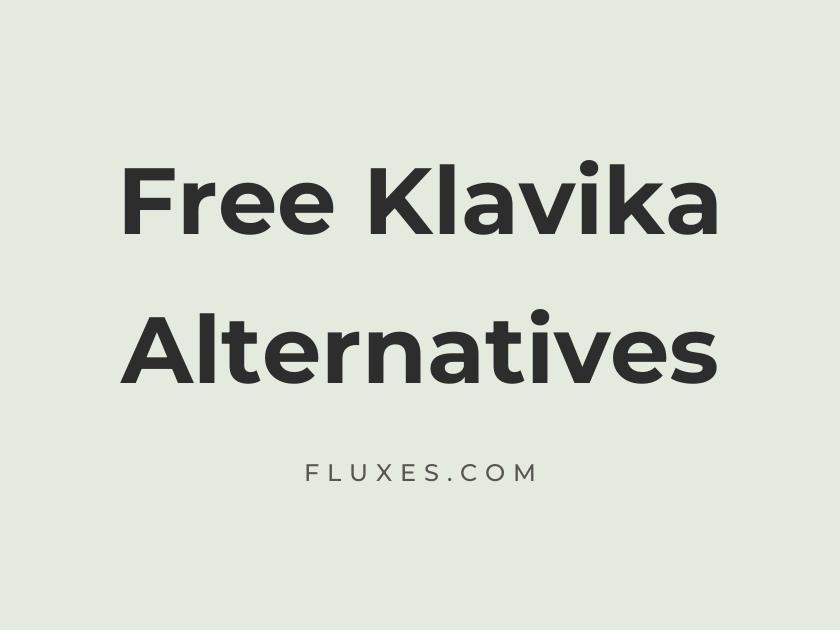
16 Best Free Fonts Alternatives to Klavika
Klavika built its reputation on the sports pages and broadcast graphics of ESPN, prized for a geometric structure softened just enough by rounded, almost humanist curves. That combination of technical precision and warmth is hard to find, and since Klavika itself was never released as a free Google Font, designers looking for that same confident, modern sans often end up hunting for substitutes. The fonts gathered here share its geometric bones, clean apertures, or sporty confidence, and every one of them is free to download and use in branding, editorial layouts, and interface work.
1. Montserrat
Bold headlines built for modern brand systems
Montserrat is the font most designers reach for first when a brief calls for something geometric and urban, and it earns that reputation with even stroke widths and a wide range of weights that scale from delicate captions to billboard-sized display type. It shares Klavika’s confident, almost architectural feel without borrowing any of its more unusual details, making it a safe and versatile substitute for logos, headers, and UI type.
2. Poppins
Score updates, standings, and stat breakdowns
Poppins leans harder into pure geometry than Klavika, with perfectly round o’s and consistent monoline strokes that give it a friendly, almost toy-like energy at large sizes. It works well for app interfaces and sports-adjacent branding that wants to feel current and approachable, though at small body text sizes the uniform stroke width can start to blur, so pair it with a more neutral text face for long paragraphs.
3. Jost
Fast, clean, geometric type for game day
Drawing inspiration from 1920s geometric sans classics, Jost brings a retro-futurist edge that photographs well in oversized headlines and posters. Its perfectly circular counters and tall x-height give it real presence on a page, and it makes a striking substitute wherever Klavika’s geometric confidence is the main draw rather than its warmth.
4. Space Grotesk
Technical stats rendered in sharp modern type
Space Grotesk carries a slightly quirky, engineered feel, with subtle irregularities in its letterforms that keep it from feeling too mechanical. It suits tech dashboards, sports data visualizations, and product interfaces where Klavika’s technical sensibility matters more than a strict geometric grid.
5. Sora
Precision graphics for the broadcast booth
Sora reads as calm and controlled, built on geometric skeletons but finished with rounded terminals that keep it from feeling cold. It is a strong choice for dashboards, sports apps, and product UI that need a display font capable of also handling smaller interface text without falling apart.
6. Outfit
Championship rosters and league standings
Outfit is a compact, no-nonsense geometric sans that feels tailor-made for interface labels, navigation bars, and short headline bursts. Its tight spacing and even weight distribution echo the tidy, engineered look Klavika brought to ESPN’s on-screen graphics.
7. Manrope
Clean grids for scoreboards and stat panels
Manrope softens geometric construction with slightly narrowed apertures and gentle curves, giving it a more editorial, less sporty character than some of the other options here. It works especially well in body copy and captions, making it a smart pairing partner for a bolder geometric display font used in headlines.
8. Barlow
Fast-paced sports coverage, headline to footer
Barlow takes its cues from the low-key, functional signage lettering of California license plates and highway systems, which gives it a slightly condensed, utilitarian rhythm that suits sports and athletic branding particularly well. It has genuine range too, with enough weights and widths to cover an entire publication’s typographic system, from dense data tables to oversized magazine headlines.
9. Archivo
Bold scores, bold statements, bold design
Archivo carries real muscle at heavy weights, with thick, confident strokes that hold up beautifully in large headlines and cover treatments. Originally developed for editorial and grid-based design systems, it has the structural discipline that made Klavika a favorite for data-heavy sports layouts.
10. Chivo
High-impact type for high-impact moments
Chivo is unapologetically bold and geometric, built for headlines that need to command attention rather than blend in. It can feel heavy-handed in long-form text, so it is best reserved for titles, scoreboards, and cover lines rather than paragraphs.
11. Red Hat Display
Modern branding for teams and leagues
Red Hat Display was designed with corporate and product branding in mind, and it shows in its restrained, businesslike geometry. It is a dependable, understated alternative for brands that want Klavika’s technical polish without any playful flourishes.
12. Hanken Grotesk
Sharp lines for sharp competition
Hanken Grotesk keeps things simple and legible, with a slightly compressed structure that reads well in tight layouts like sidebars and data tables. It doesn’t try to be flashy, which makes it a reliable workhorse font for the supporting text around a bolder geometric headline face.
For sports and broadcast-style graphics, lean into heavier weights and tight letter spacing to echo Klavika’s confident, on-screen presence.
Any of these free Google Fonts can stand in for Klavika depending on how much warmth, geometry, or technical polish your project needs. Testing a couple of options side by side in your own layout is still the fastest way to find the closest match.